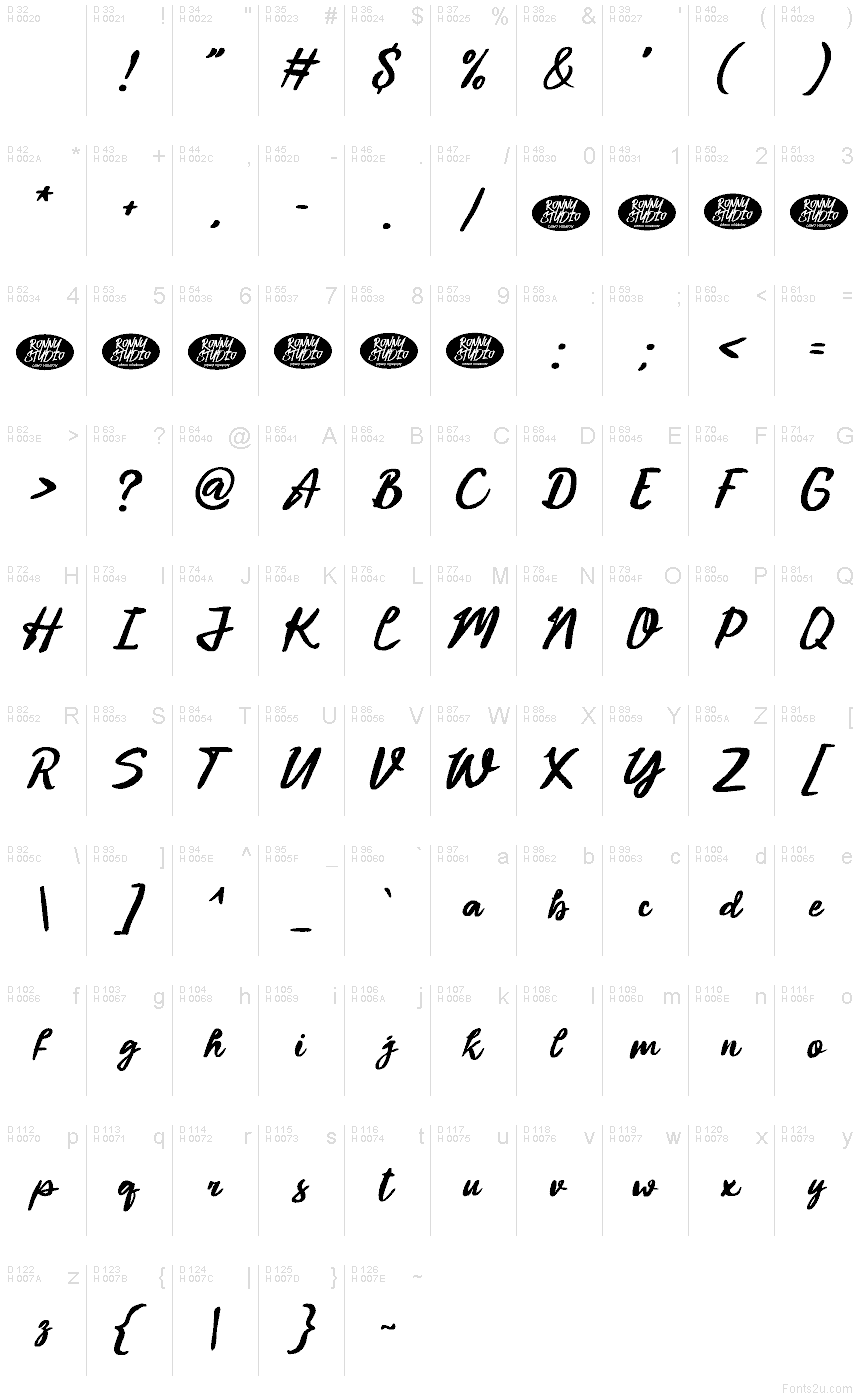
Vintage Light DEMO
Vintage Light font by Ronny Studio is a nostalgic and elegant handwritten font that captures an authentic and expressive style. With smooth connections and an artistic charm, it offers a flowing design that brings a unique touch to any project. This free font stands out with its classic yet modern feel.
Perfect for logos, invitations, book covers, branding materials, greeting cards, posters, social media graphics, blog headers, product packaging, or personal projects like scrapbooking and journaling. Its versatile nature enhances both digital and print designs.